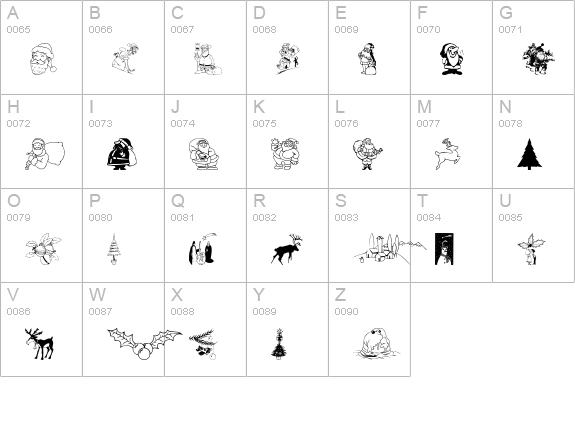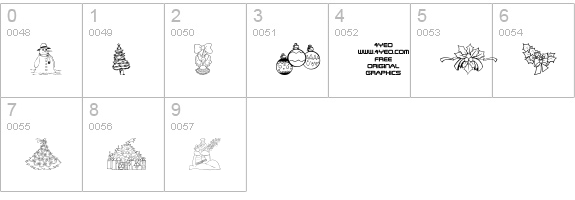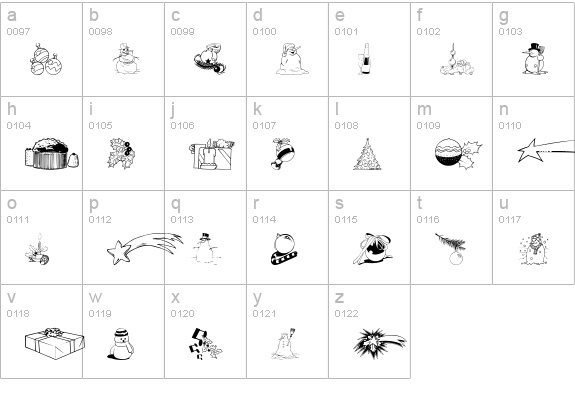
Introducing the exquisite and festive 4YEOXMAS font, perfect for adding a touch of holiday cheer to your design projects! This unique font features whimsical and playful characters that evoke the joy and spirit of Christmas. The 4YEOXMAS font is ideal for creating eye-catching cards, invitations, posters, and more during the holiday season. Best of all, this stunning font is available for free download at FontsMarket.com! Embrace the magic of the season with the 4YEOXMAS font and let your creativity shine. Whether you're designing a holiday party invitation or crafting a seasonal greeting card, this font is sure to bring a touch of festive charm to your projects. Download the 4YEOXMAS font today and spread holiday cheer with every design!